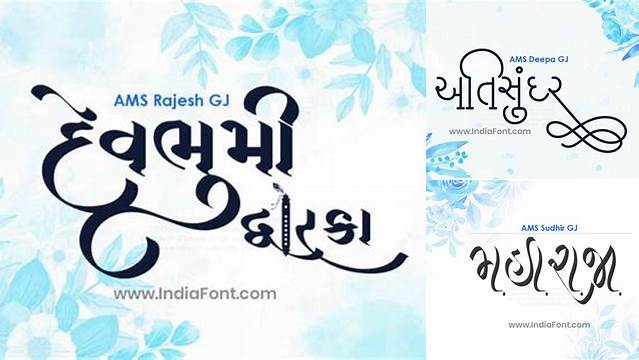
Gujarati Calligraphy Fonts: Design & PNG Guide
Creating stunning Gujarati calligraphy fonts in PNG format can be a rewarding experience, allowing you to express creativity and add a unique touch to your designs. Guys, let's dive deep into the process, exploring various aspects to help you master this art form. From understanding the nuances of Gujarati script to leveraging the right tools and techniques, we'll cover everything you need to know to bring your vision to life. This guide will walk you through the steps, providing insights and tips to ensure your creations are not only visually appealing but also technically sound for use in various projects. So, let's get started and unlock the potential of creating Gujarati calligraphy fonts PNG!
Understanding the Gujarati Script for Calligraphy
Before we jump into the technical aspects of creating Gujarati calligraphy fonts PNG, it's crucial to have a solid understanding of the Gujarati script. The script itself is derived from the Devanagari script and shares similar structural features. However, Gujarati has its unique character set and stylistic variations. Learning the basic strokes and letter formations is fundamental. Guys, familiarize yourselves with the core components like matras (vowel signs), consonants, and ligatures (joined letters). These elements come together to form words and phrases, and understanding their structure will help you create more authentic and beautiful calligraphy. This deep dive into the script ensures that your font reflects the cultural essence of the Gujarati language. Understanding the nuances of the script allows you to create fonts that are both aesthetically pleasing and linguistically accurate. The script's unique characteristics, such as the horizontal line connecting the letters, are critical to consider when designing your font. Furthermore, studying the traditional calligraphy styles of Gujarati will give you inspiration and inform your design choices. Paying attention to the proportions, spacing, and overall flow of the script will elevate your font's quality. Guys, by thoroughly understanding the Gujarati script, you’re not just creating a font; you’re crafting a piece of cultural art. This foundation will enable you to design fonts that are true to the language's heritage while also being visually appealing. This will allow you to produce fonts that not only look good but also accurately represent the Gujarati language.
Essential Elements of Gujarati Script
To master the art of creating Gujarati calligraphy fonts PNG, it’s essential to understand the core elements of the script. First, there are the consonants, which form the skeletal structure of the words. Then you have the matras, or vowel signs, that attach to these consonants to create a complete syllable. Ligatures, or conjuncts, are another important component. These are combinations of consonants that join together to form a single glyph. Understanding these elements helps you in designing fonts. The horizontal line, often seen across the top of Gujarati letters, plays a significant role in the visual unity of the script. Furthermore, knowing the correct stroke order and letter forms is important, guys. These impact how the script flows when written. Lastly, understanding the proper spacing between letters and words will enhance readability. Each element is like a brushstroke, contributing to the overall aesthetic and readability of your font. By studying these elements and incorporating them into your design, you can create fonts that respect and celebrate the Gujarati language.
Exploring Traditional Gujarati Calligraphy Styles
Before creating Gujarati calligraphy fonts PNG, understanding traditional Gujarati calligraphy styles is a must. This knowledge provides inspiration and a framework for your own creations. Several styles have evolved over time, each with unique characteristics. Guys, studying these styles will give you insight into different approaches to letter forms, spacing, and overall aesthetic. Traditional styles often feature specific weights and contrast in strokes. Additionally, they often employ the use of a specific set of tools and techniques, such as bamboo pens or brushes, which influence the design. Researching these tools will improve your design too. Consider looking at how the letters are connected, how the ligatures are formed, and what kinds of flourishes or embellishments are typical. Observing the work of master calligraphers will inspire you and inform your design decisions. Moreover, these studies may influence your creative process. The goal is not to copy these styles but to understand their essence and incorporate elements into your font. This approach ensures that your font pays homage to Gujarati heritage while still being unique and modern. Furthermore, exploring these styles also gives you a base to start with. It also helps you respect the artistic traditions and contribute to the cultural significance of Gujarati calligraphy.
Designing Individual Glyphs for Gujarati Calligraphy
Designing individual glyphs is at the heart of creating Gujarati calligraphy fonts PNG. The process involves carefully crafting each letter, character, and symbol that will constitute your font. The goal is not just to create visually appealing designs, but also ensure consistency. Guys, consistency is key! Each glyph needs to fit seamlessly. This starts with understanding the structure and shape of each Gujarati letter. It involves creating the letterforms. From this point, you can refine your glyphs to make them visually and technically compatible. The design needs to be accurate. Every stroke and curve contributes to the overall aesthetic of the font. The next steps include adjusting spacing, testing, and making final adjustments. By paying close attention to these steps, you can create fonts that capture the beauty of Gujarati calligraphy. This approach ensures your font not only looks beautiful but also functions correctly. This process is how you bring your artistic vision to life.
Creating Consistent Letterforms
When creating Gujarati calligraphy fonts PNG, consistent letterforms are essential to the success of your font. This involves making sure all the characters have a cohesive style. This requires attention to detail and a strategic approach. Start by defining the basic structure, such as the x-height, cap height, and baseline. This foundation helps your font look cohesive. Then, design each letter, taking into account its unique shapes and characteristics. Guys, pay attention to the visual weight and balance of each glyph. Make sure each letter aligns and fits well with the rest. This also includes ensuring the spacing between letters is consistent. Testing your font is critical, so you can fix any issues. Make small adjustments until all of the letters fit together smoothly. By achieving consistent letterforms, you ensure that your font reads well. You will be able to bring your creative vision to life. The result will be a cohesive, readable, and visually appealing font. You'll be sure to give your design a professional touch.
Stroke Techniques and Brush Effects